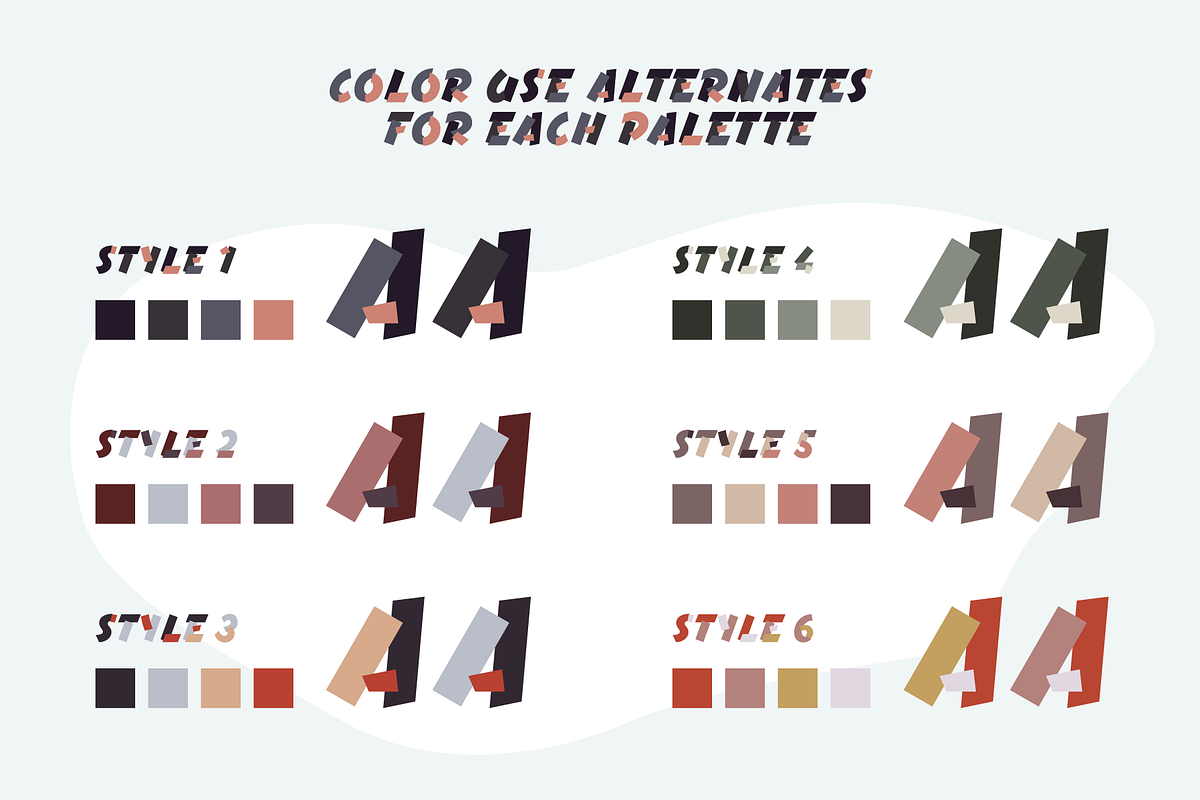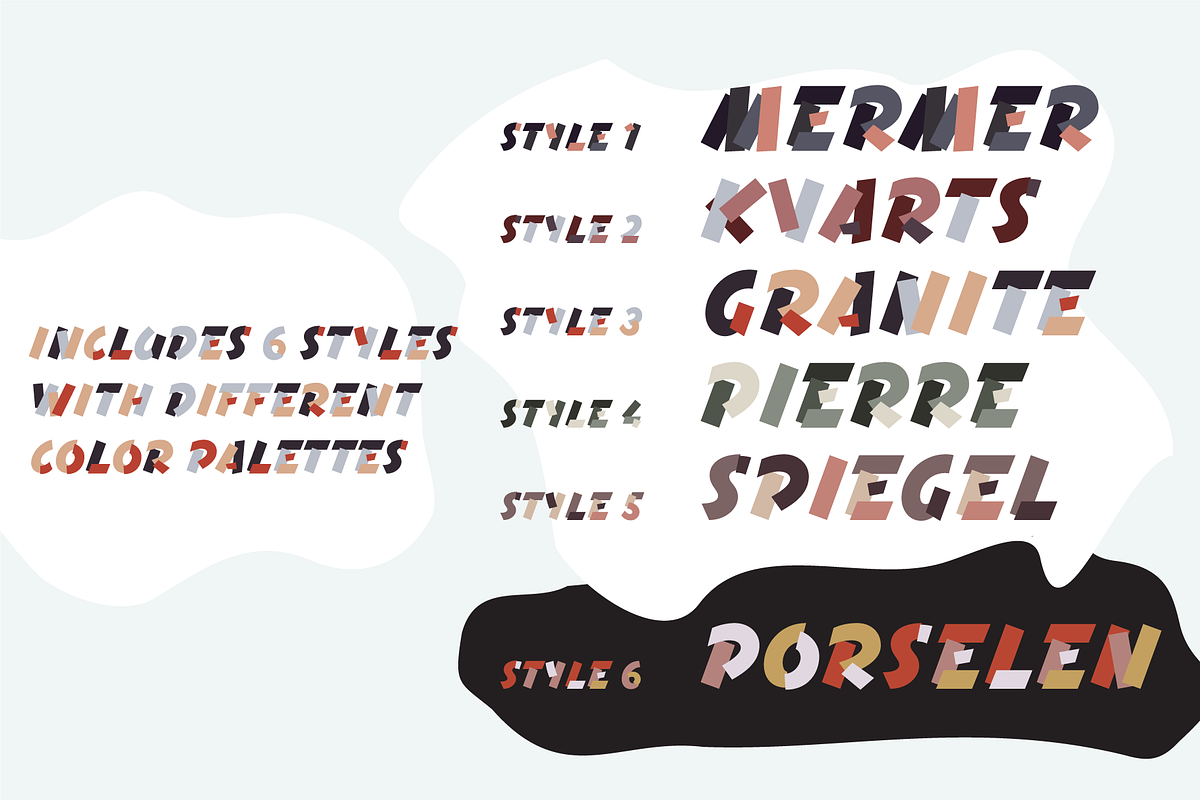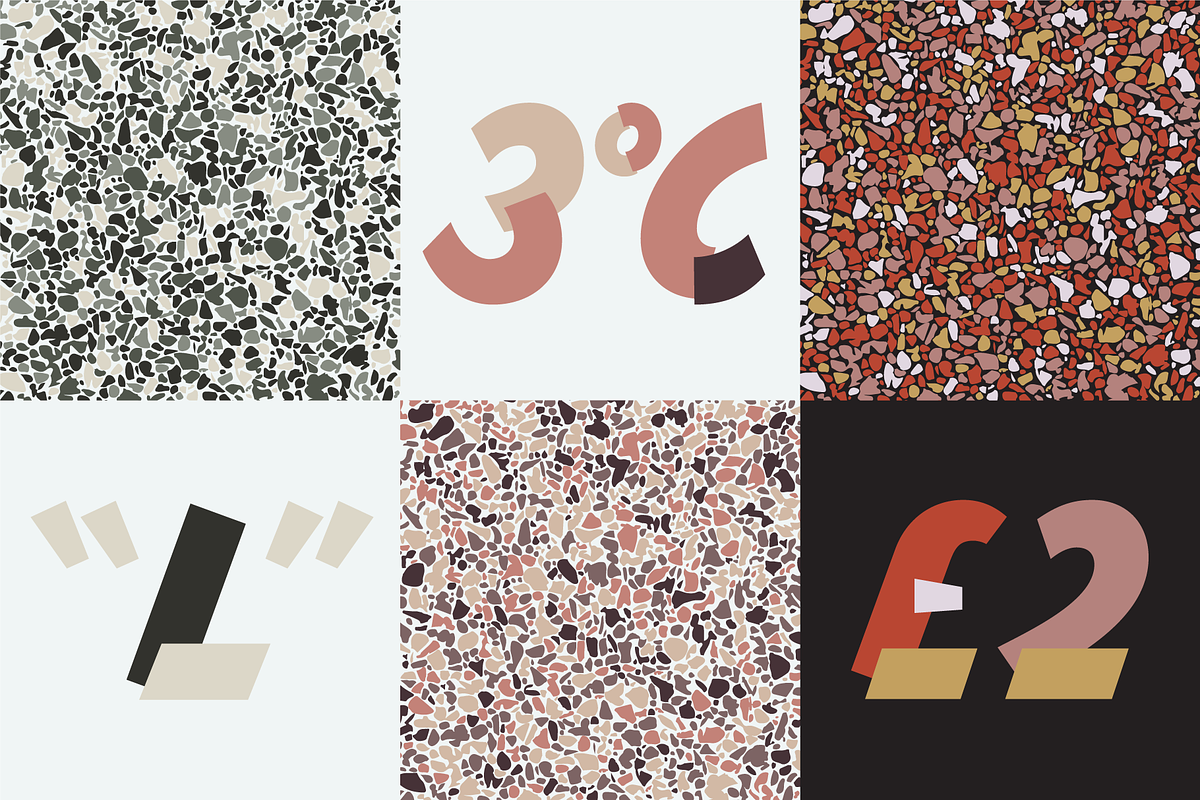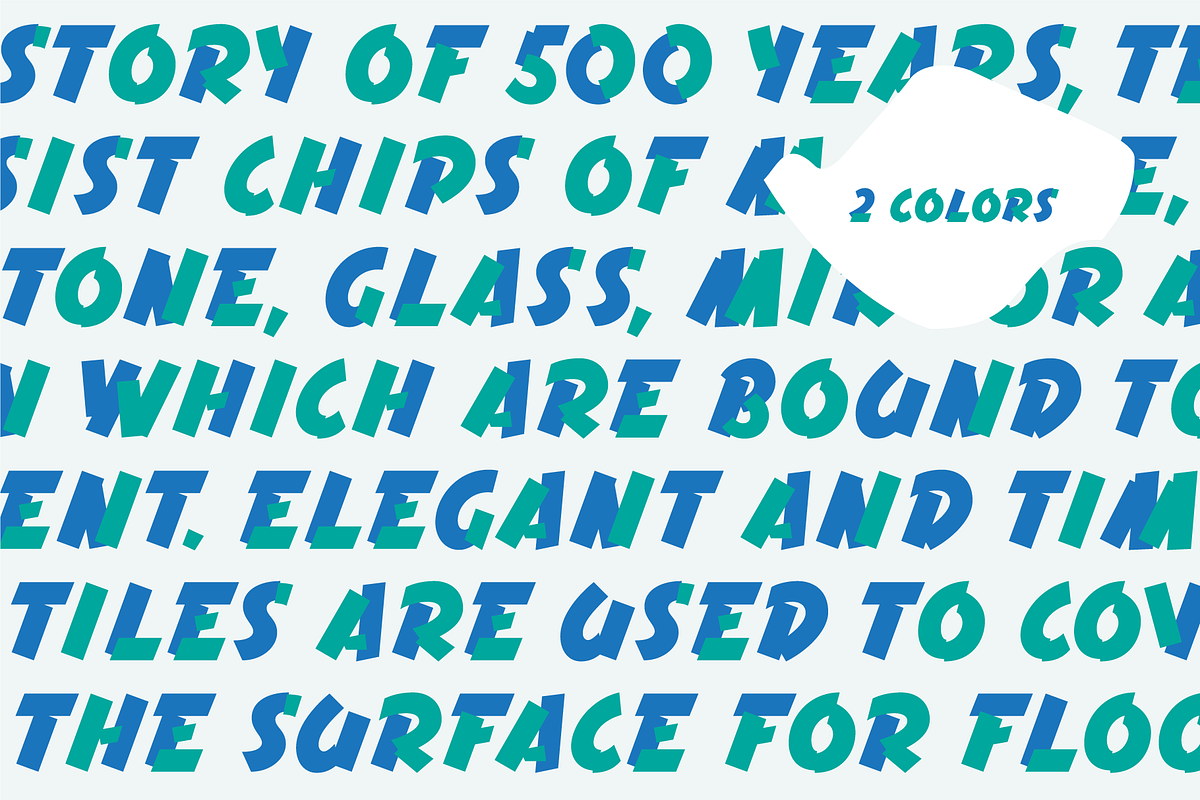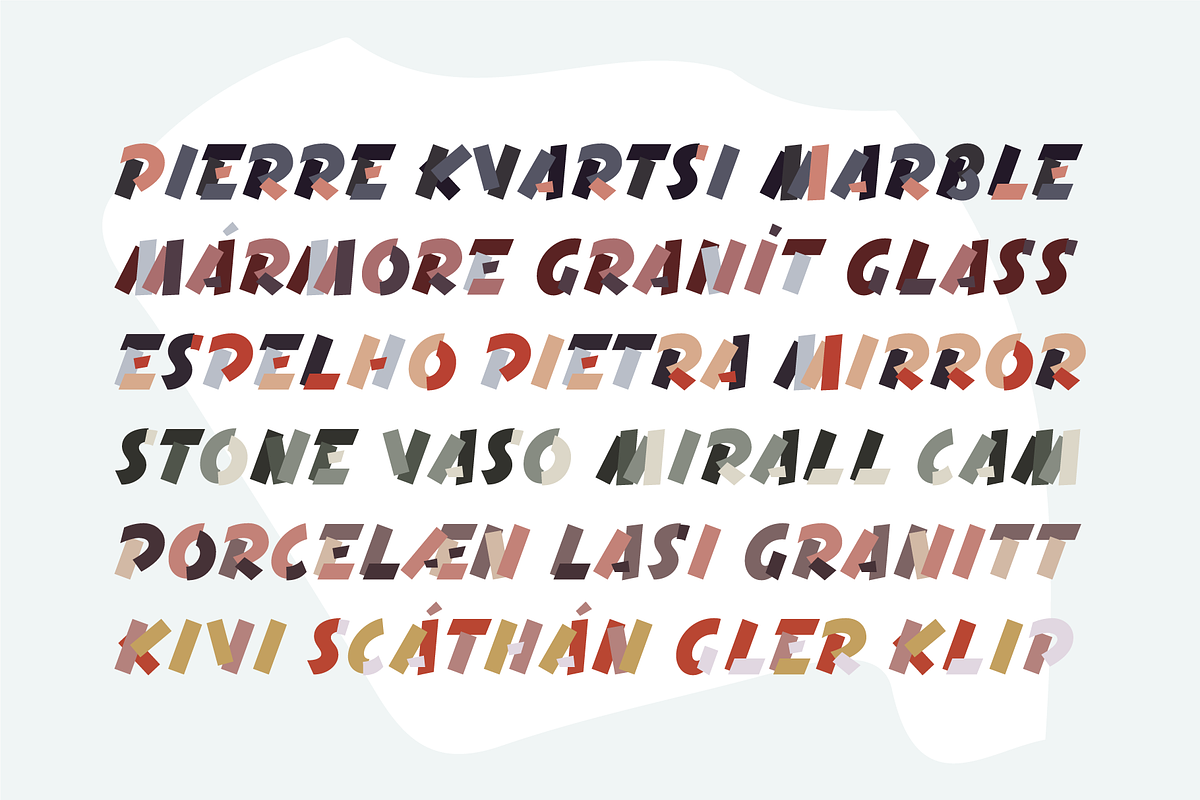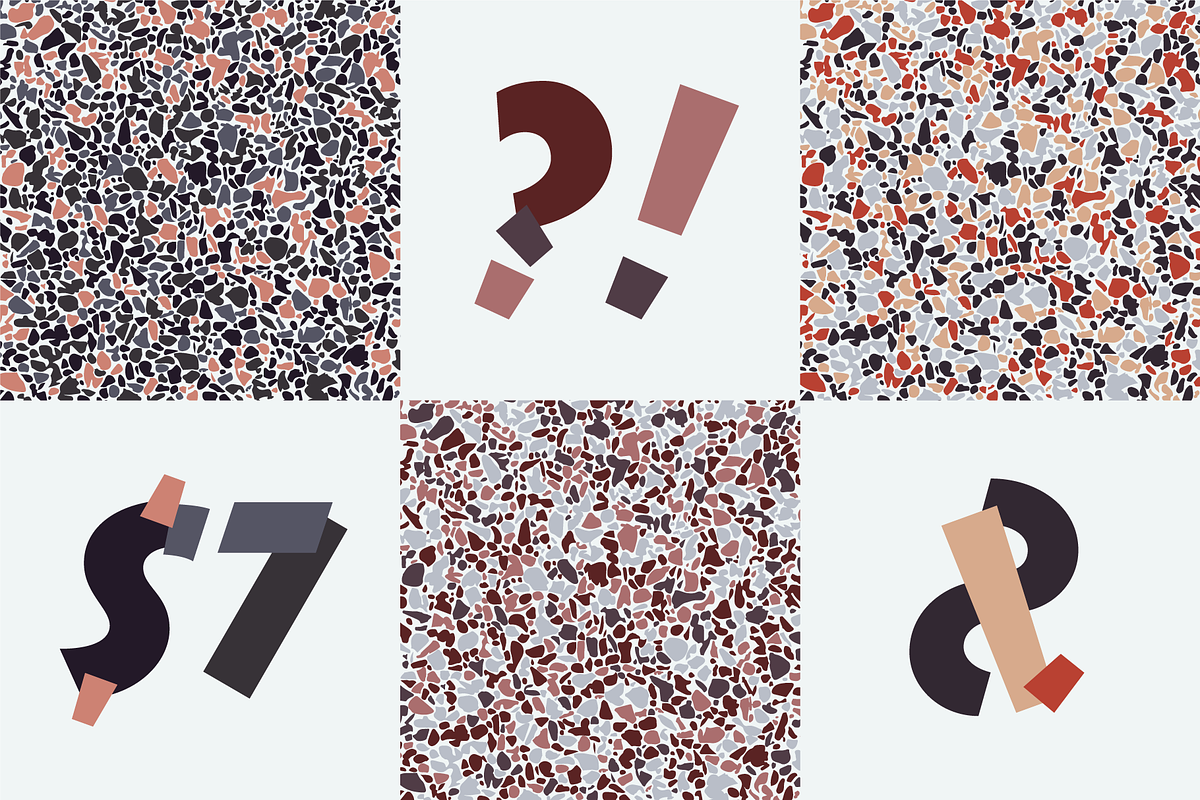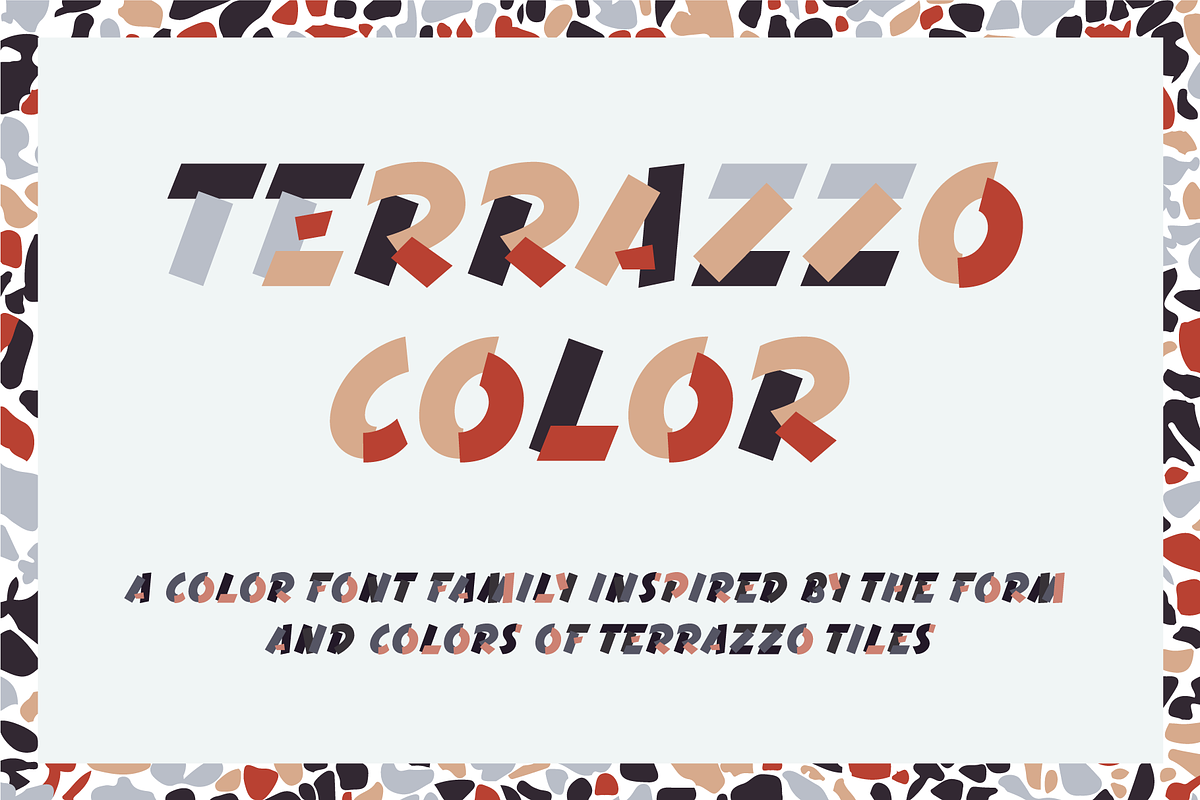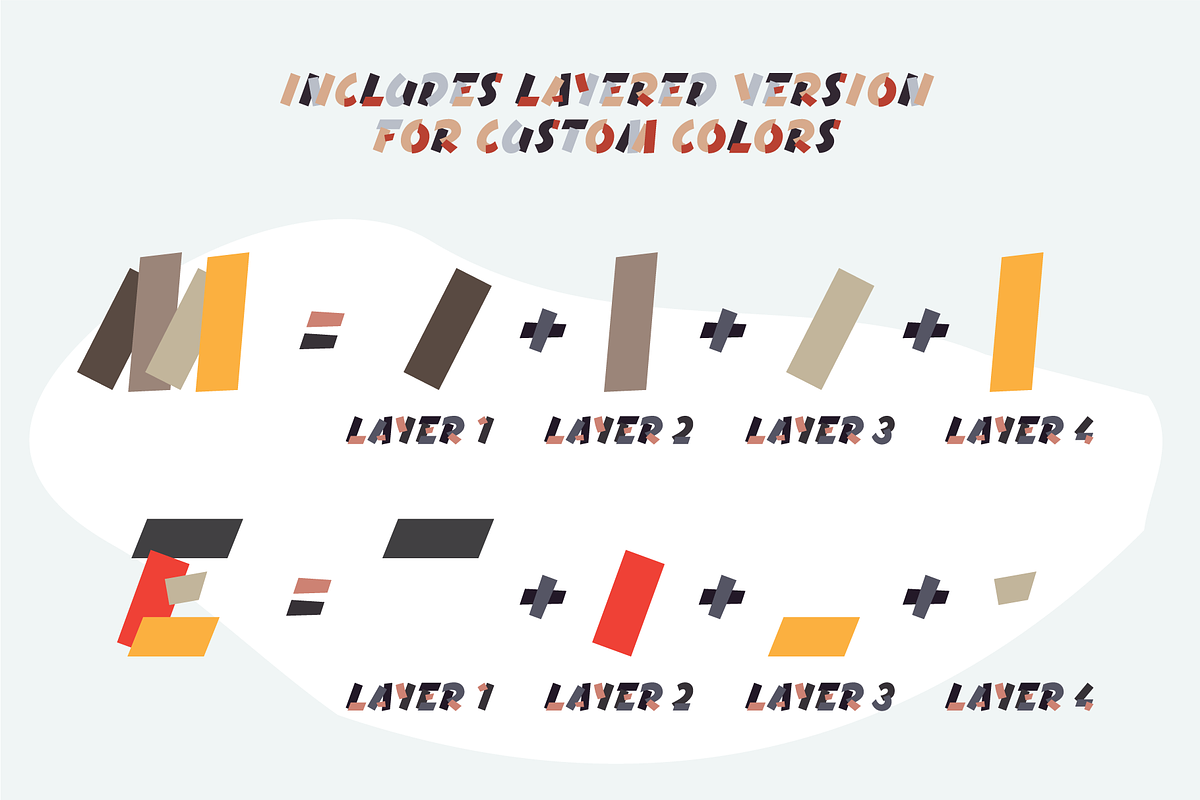
Terrazzo Color Font Family
A color font family inspired by the form and colors of terrazzo tiles. Designed as a bold and stylish display type, it’s suitable for posters, editorial design, advertising, presentations, book covers, social media posts, products and even walls! The colors instantly give a decorative look to blocks of text and the customization options provide flexibility to set the desired tone with four, three or just two colors. Suitable for setting headlines and longer texts, Terrazzo Color also contains a regular black version.
Includes 6 styles with different color palettes
Terrazzo Color comes in 6 different OpenType-SVG fonts with built-in color palettes. Each color combination has been created with tones and shades of traditional terrazzo tiles including one to be used on dark backgrounds.
Developed as an all-caps font, the lowercase characters include alternative use of the color palette for the respective uppercase character. Just turn caps on and off to try out different combinations.
The layered version comes in 4 layers to create your own color combinations. The colors are carefully distributed across layers to match the look and feel of the tiles.
Includes regular version
A regular black OTF/TTF font is also included in the pack and can be used as a stand-alone font.
The character set is based on Adobe Latin 2 (extended to include Turkish) supporting most Western languages: Afrikaans, Basque, Breton, Catalan, Danish, Dutch, English, Finnish, French, Gaelic, German, Icelandic, Indonesian, Irish, Italian, Norwegian, Portuguese, Sami, Spanish, Swahili, Swedish and Turkish.